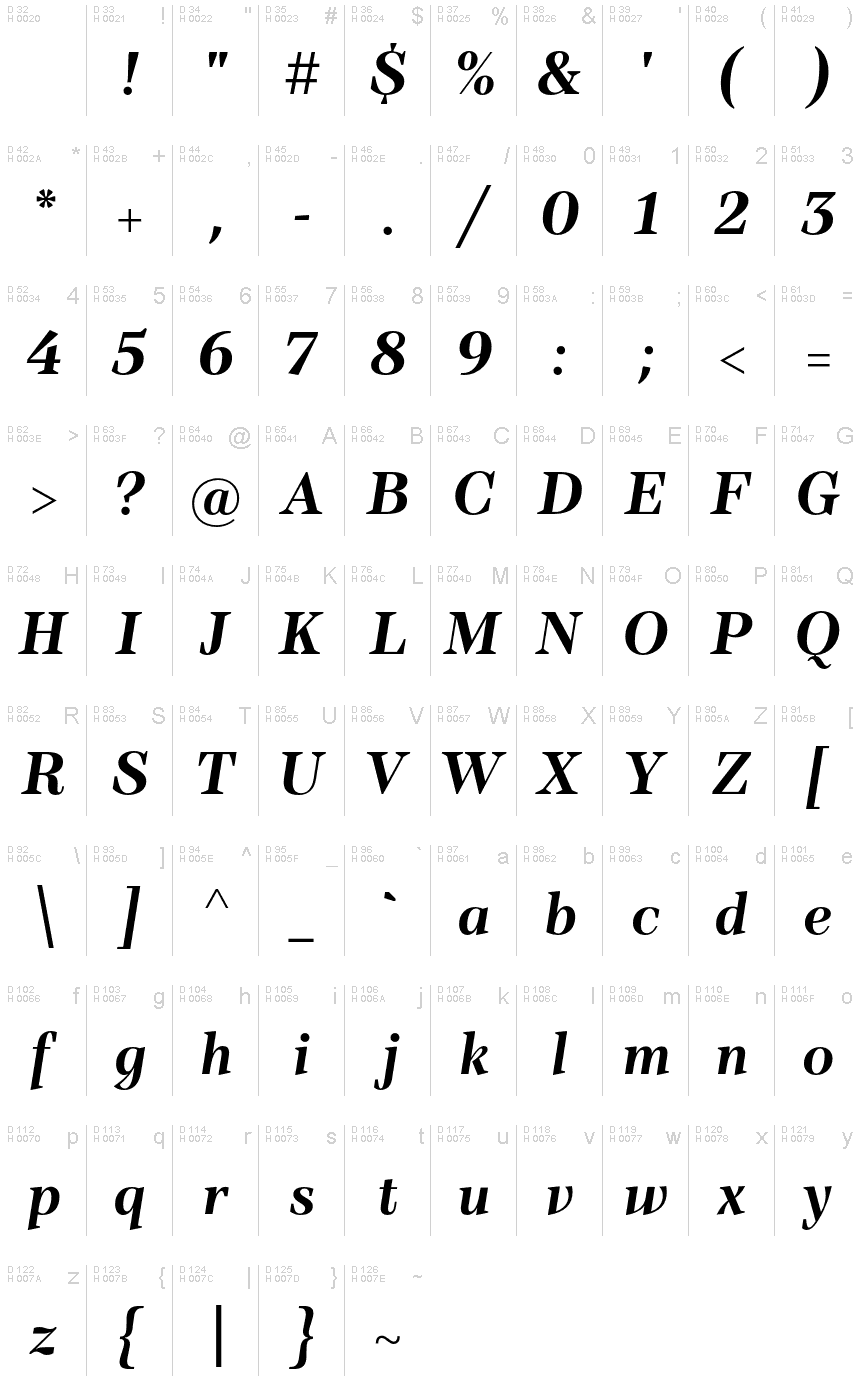
TT Barrels Trl Bold Italic
TT Barrels Bold Italic is a captivating serif font by TypeType Foundry. Its bold weight and italic style make it perfect for projects that demand attention and evoke a sense of sophistication. The unique design of this typeface makes it suitable for branding materials, editorial designs, packaging, and even luxury fashion products. With its clean lines and elegant curves, TT Barrels Bold Italic can add an air of professionalism to any project while remaining visually striking. Whether you're looking to make a statement with your design or simply enhance its overall aesthetic appeal, TT Barrels Bold Italic is the perfect choice for any project that requires a bold serif font.